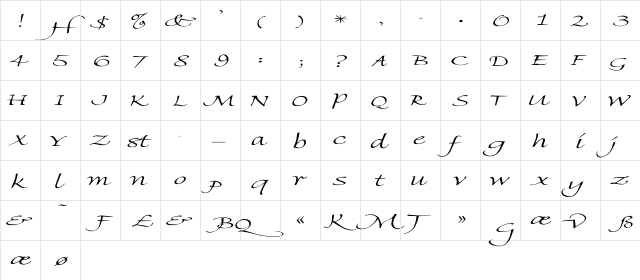
Florence-Light Ex Regular
Design Context for Florence-Light Ex Typeface
Florence-Light Ex is a composed and adaptable typeface that performs quietly and consistently across a wide range of design contexts. The delicate stroke weight brings airiness and refinement to layouts.